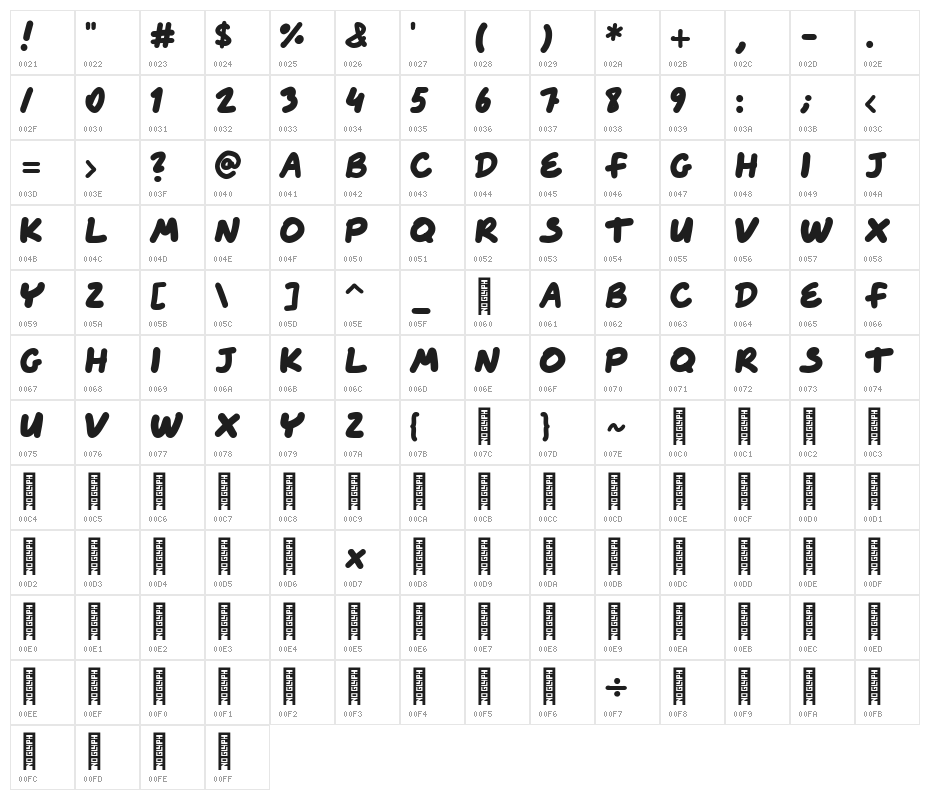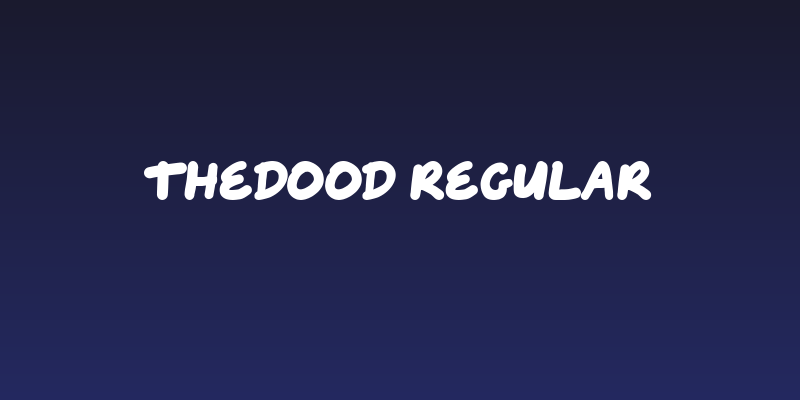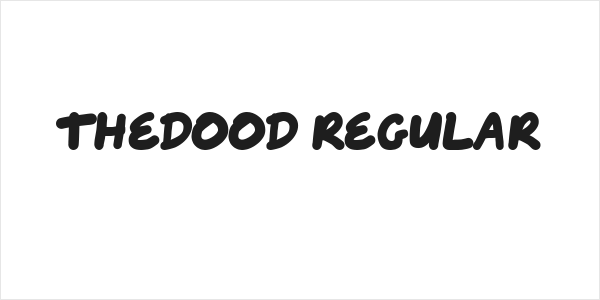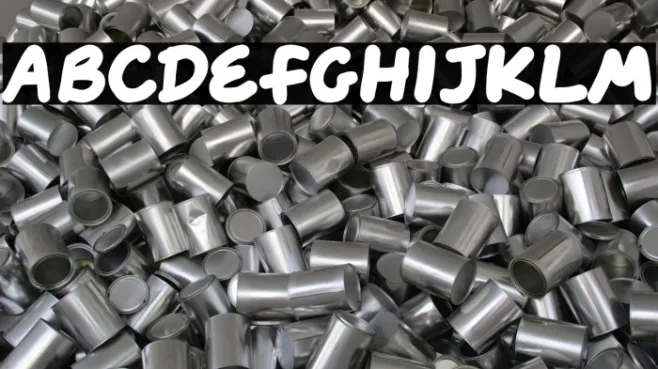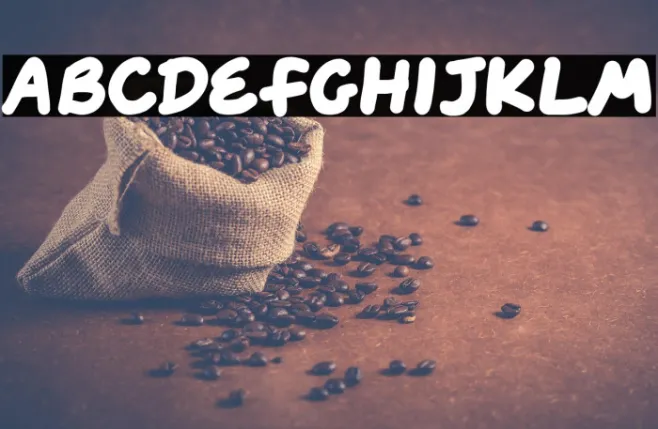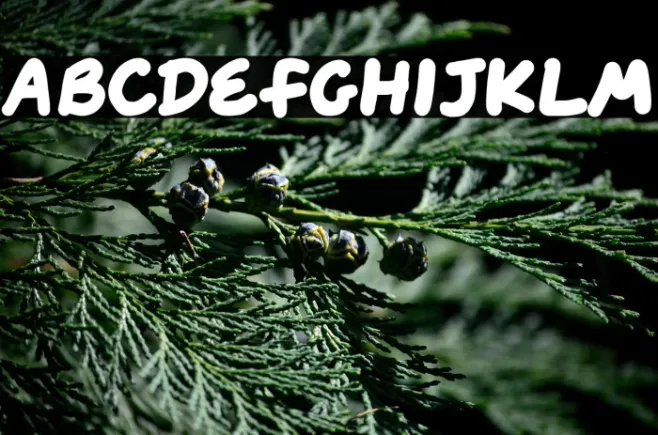
theDood Regular Font
theDood Regular Description
This playful and bold font features rounded, thick strokes that give it a friendly and approachable appearance. The characters are slightly irregular, adding a hand-drawn feel that enhances its casual style. The uppercase and lowercase letters maintain a consistent weight, contributing to a cohesive look. The numerals and special characters follow the same design principles, ensuring uniformity across all glyphs. Its unique style makes it suitable for projects that require a touch of whimsy and creativity.
| Proposed Projects | Ideal for children's books, playful branding, casual invitations, and creative posters. |